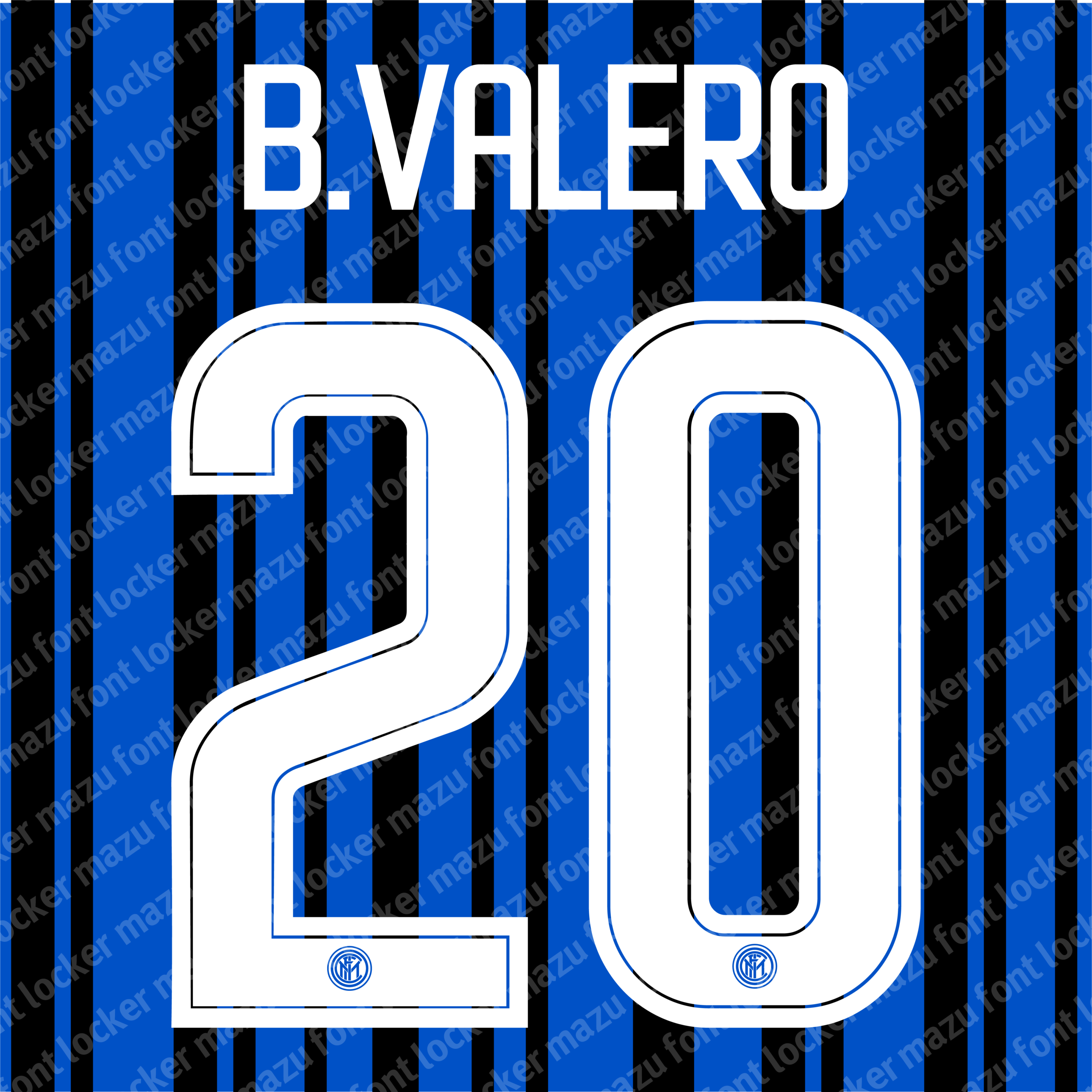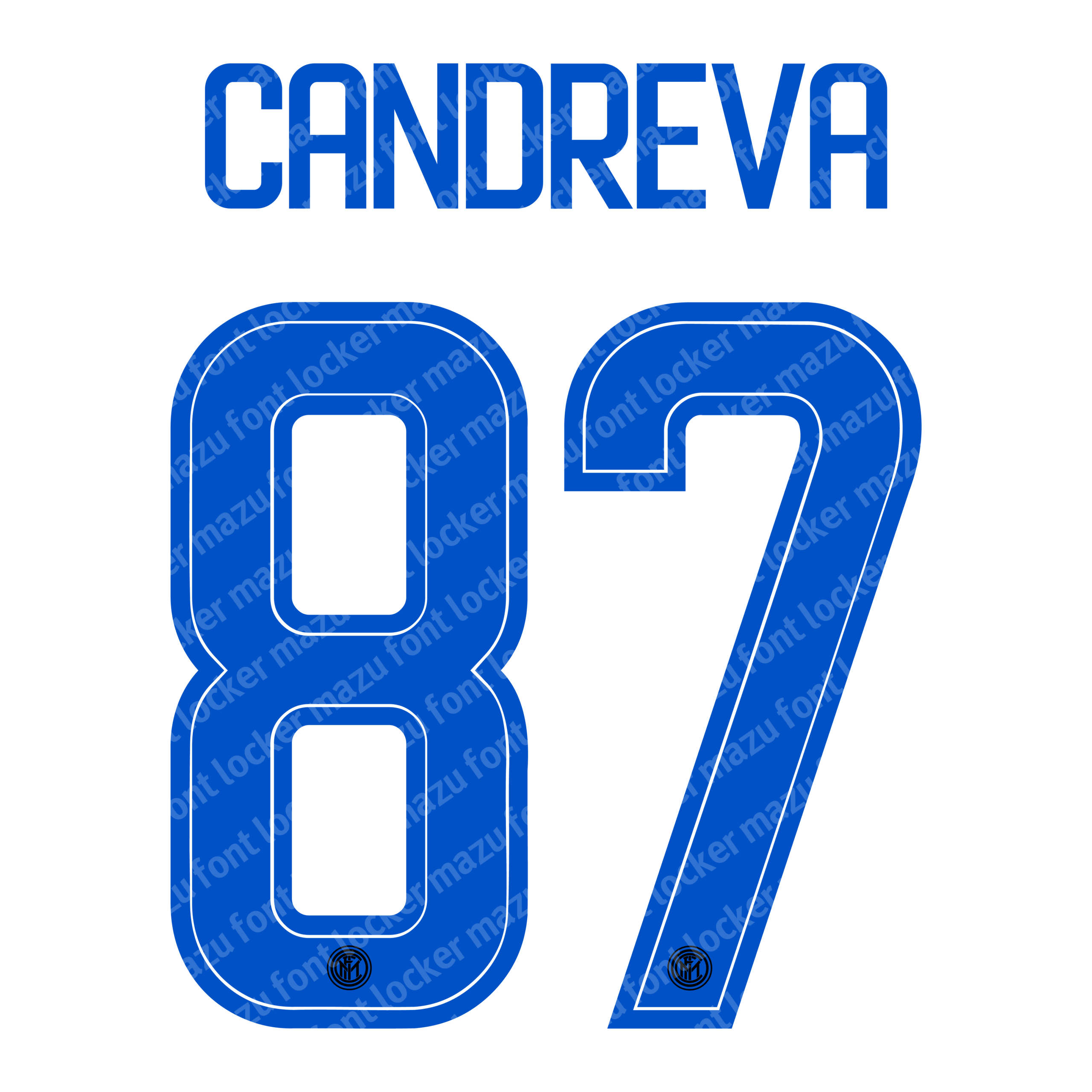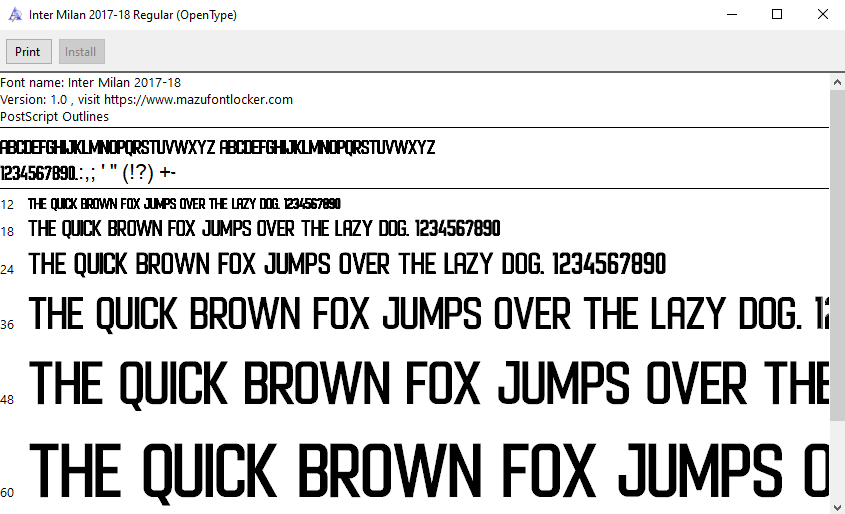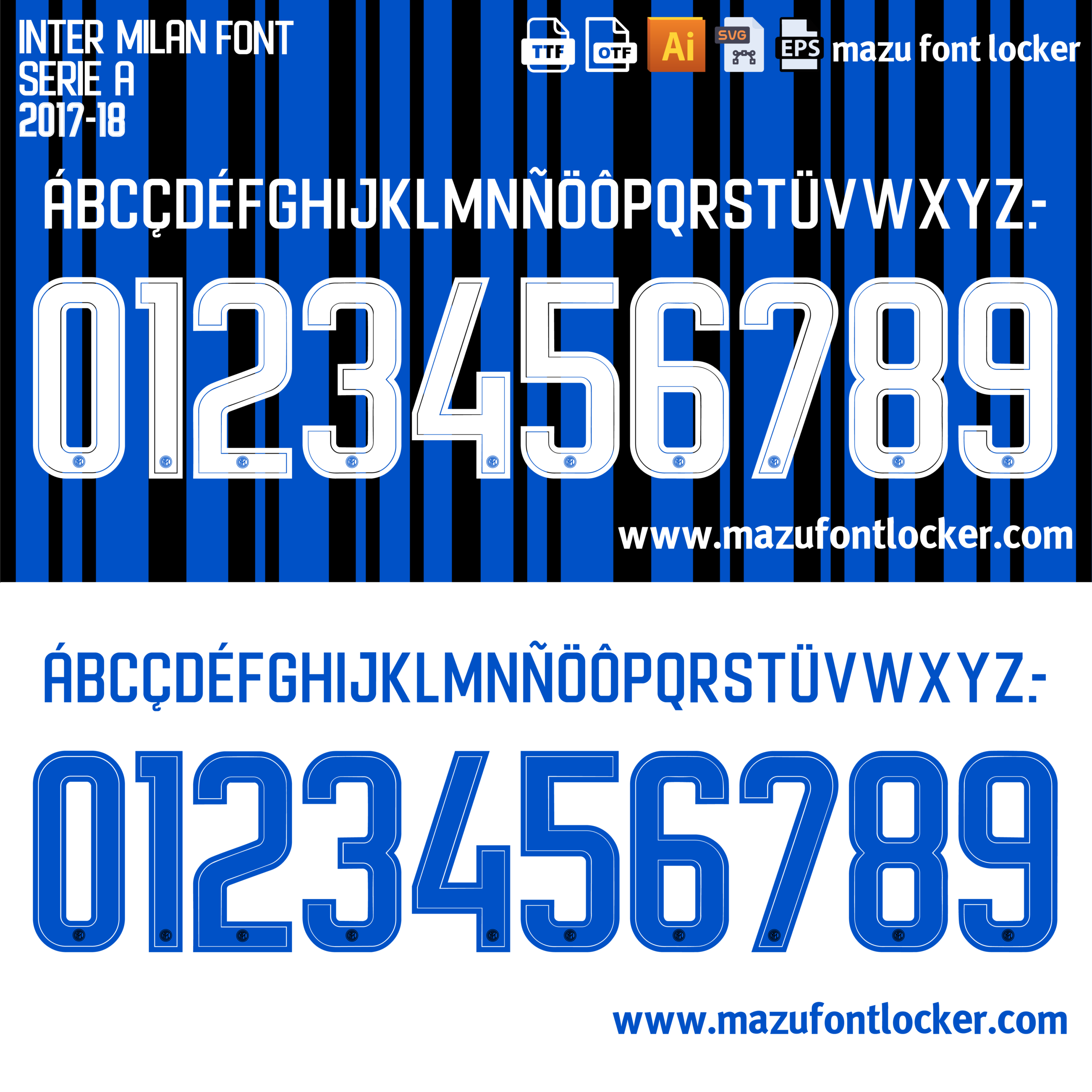
Inter Milan 2017-18 font, names and numbers, fully editable VECTOR file for customisation.
Complete design with the Inter Milan 2017-18 numbering and lettering for the Serie A Match.